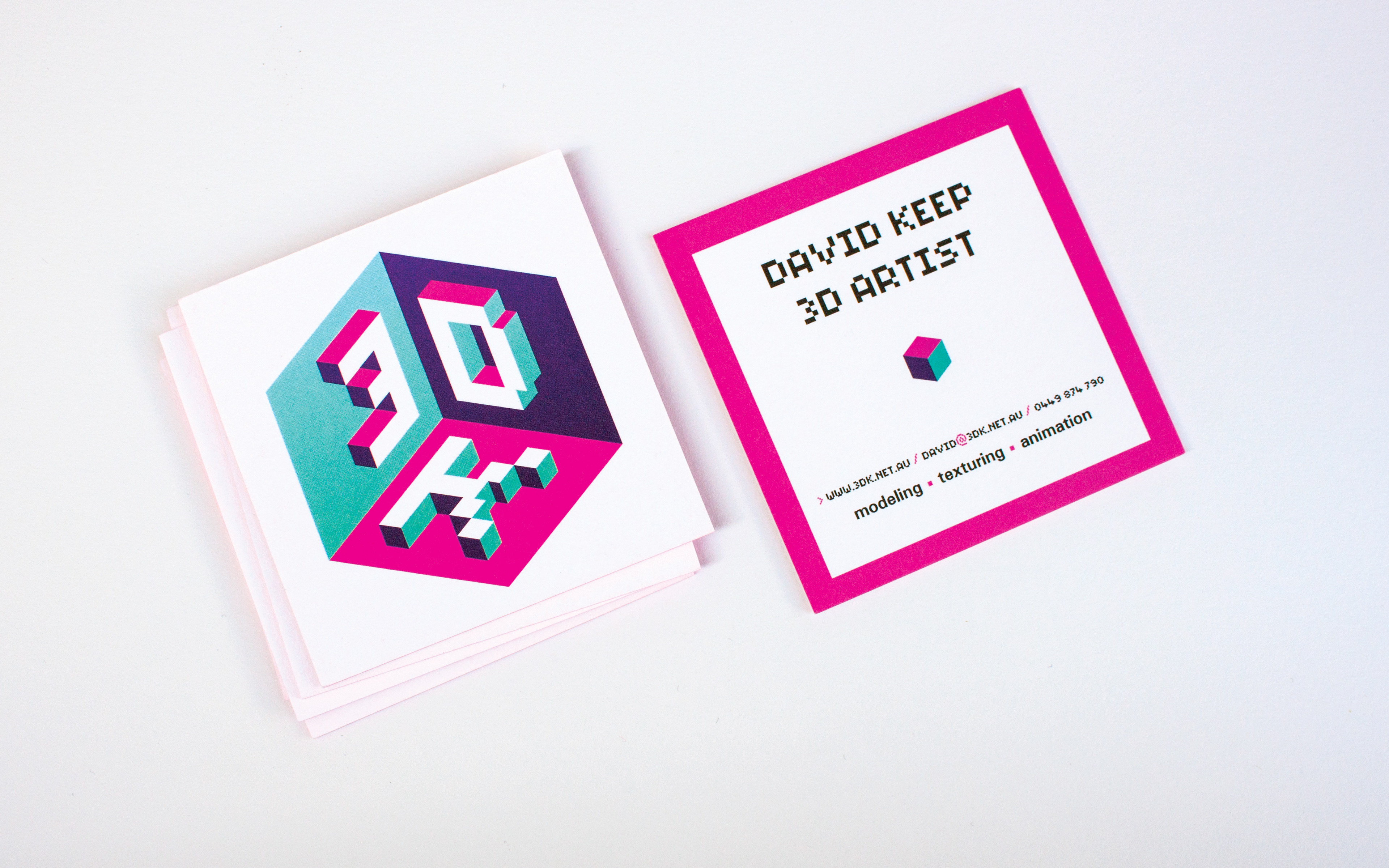
3DK Branding
Custom logo and business cards for my good friend and 3D artist, David Keep. He was looking for something to represent his personal brand in an appropriate and playful way.